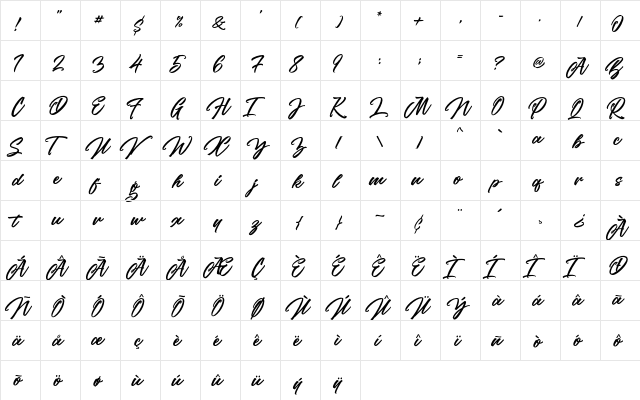
the Woofey Script Regular
Design Context for the Woofey Script Typeface
the Woofey Script flows with the natural rhythm of handwritten lettering, making it ideal for designs that call for warmth and personal expression.
Font Pairing: Combine the Woofey Script with a simple geometric sans for maximum contrast — the tension between flowing curves and clean structure is a classic typographic pairing.
Pro Tip: Pair the Woofey Script with a clean sans-serif for supporting text. The contrast between fluid script and geometric structure creates an elegant typographic hierarchy.